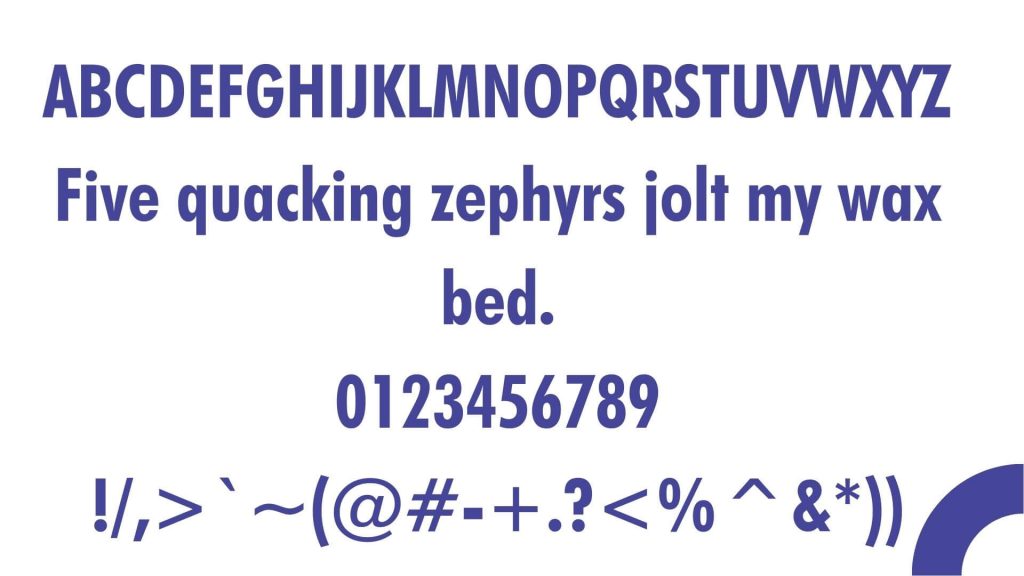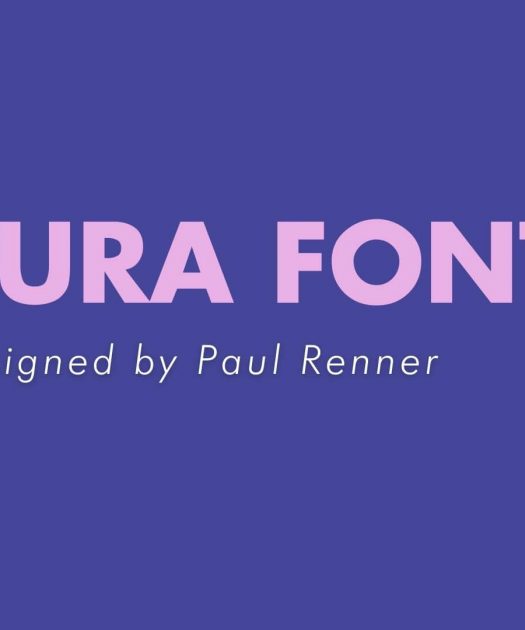
Futura Font
Futura font is a sans-serif typeface. You should look for this excellent font due to its geometric font. It was founded in 1927 by the renowned German designer, Paul Renner. He worked on various things such as triangles, weight strokes, and smooth circles of different kinds.
In this way, after a lot of work, he designed Futura. It is one of the finest fonts of the 20th century. You will use a generator to see the word and numbers of the font and you can also see its live alphabets. In combination with this font, you can use Calibri font.
View of Futura Font Family
Font Details
| Name | Futura Font |
| Designer | Paul Renner, Tommy Thompson, Edwin W. Shaar |
| Category | Geometric Sans-Serif |
| Foundry | Bauer Type Foundry |
| Similar Font | Neuzeit and Harmonia Sans |